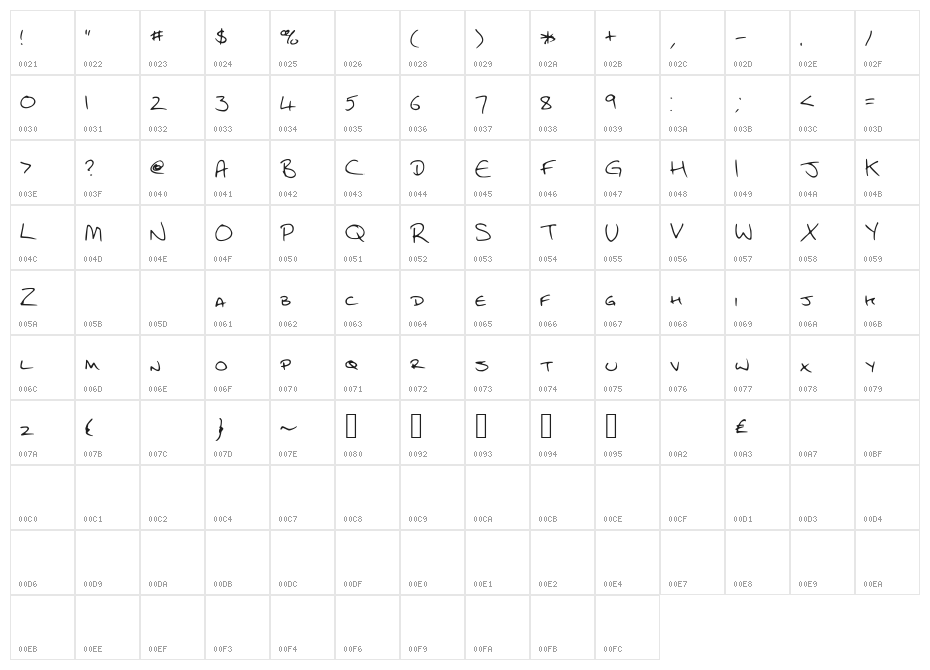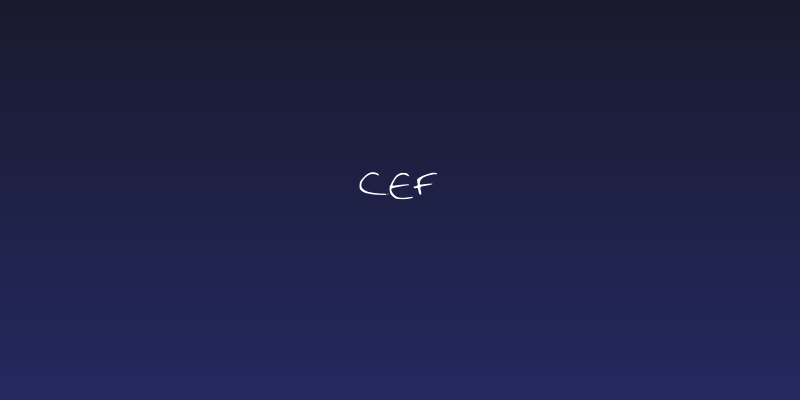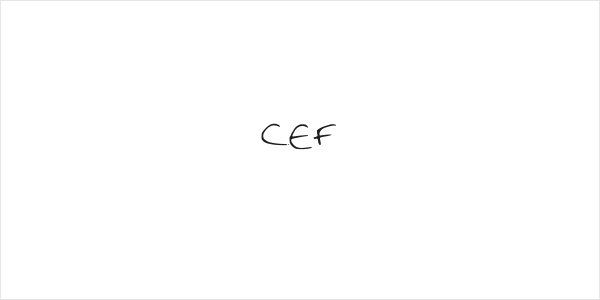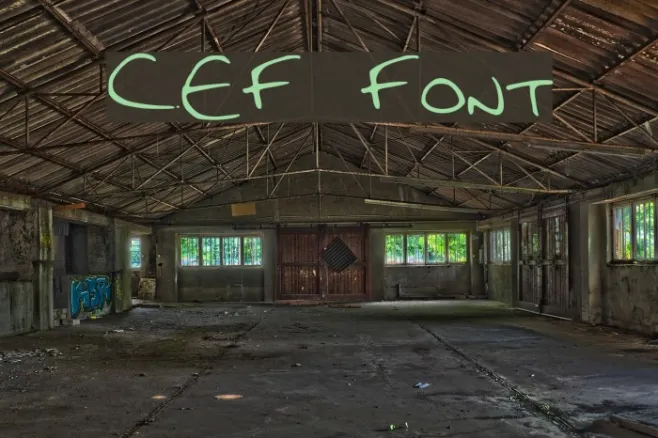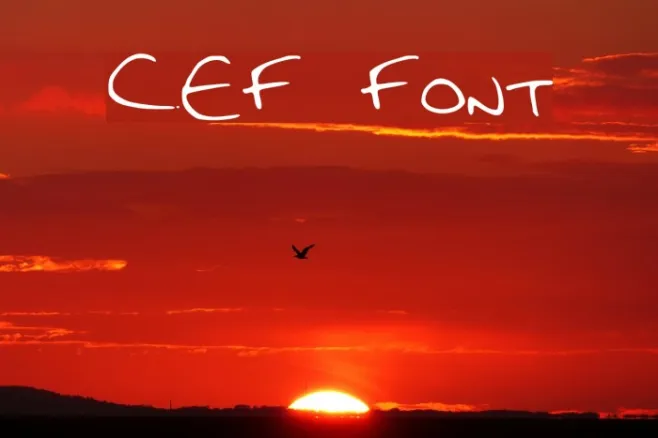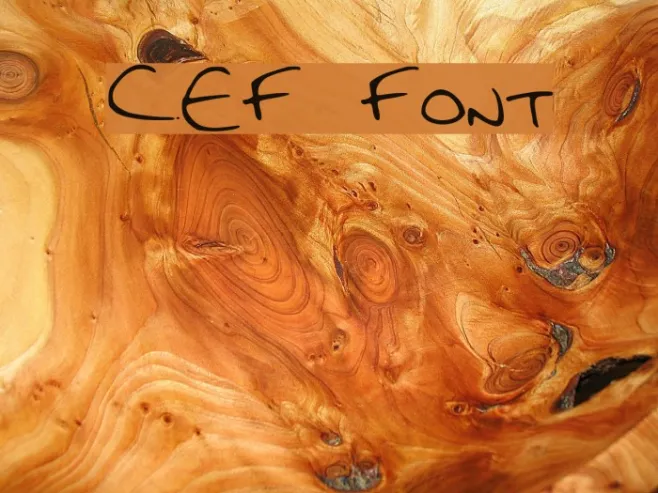
CEF Font
CEF Description
This font exhibits a playful and casual handwritten style, characterized by its flowing, organic strokes and slightly irregular letterforms. The uppercase and lowercase letters maintain a consistent style, with a natural, freeform appearance that suggests a personal touch. The numerals and special characters complement the alphabet with similar fluidity and informality. The overall impression is one of approachability and creativity, making it suitable for projects that require a personal or artistic flair.